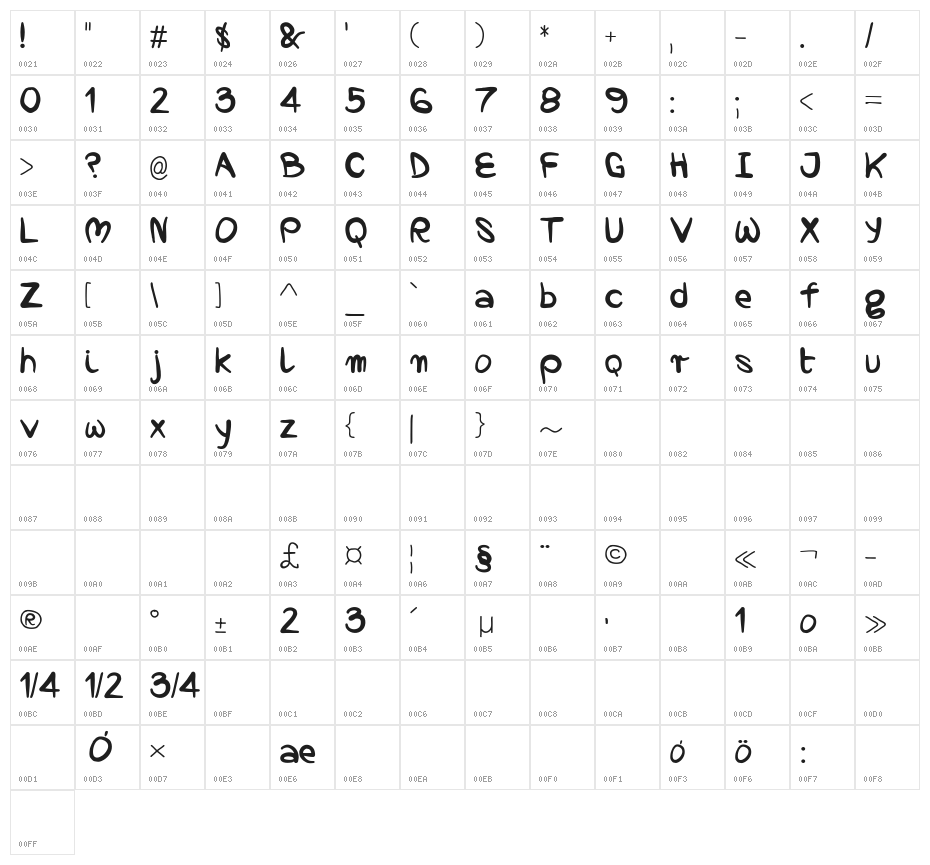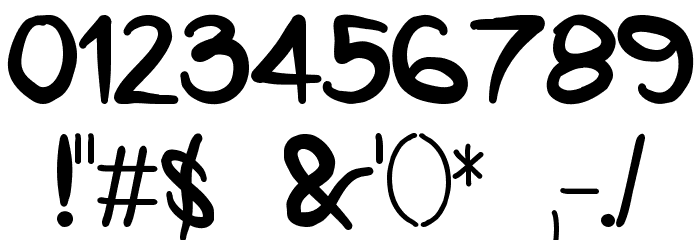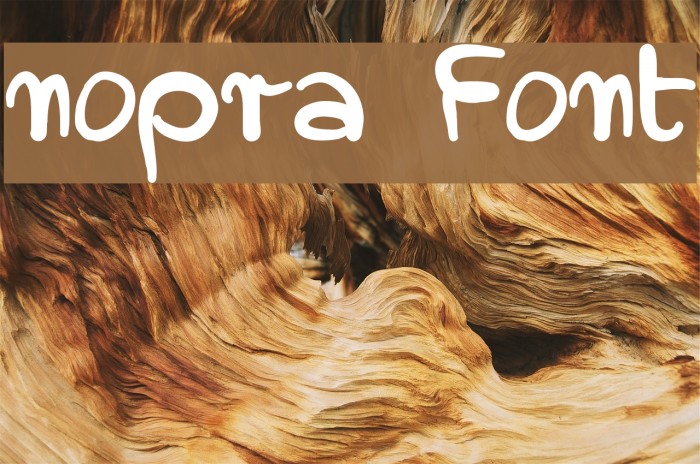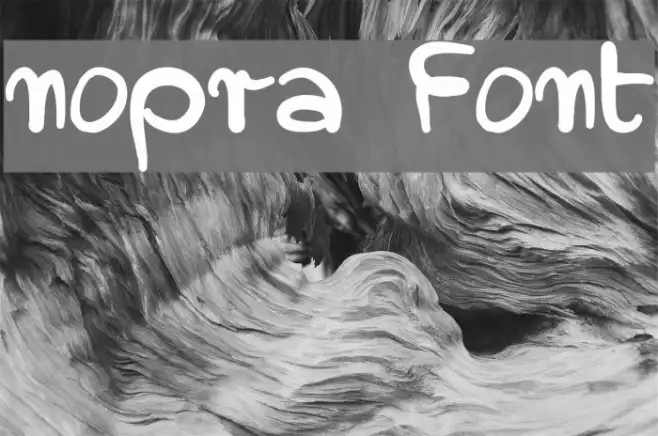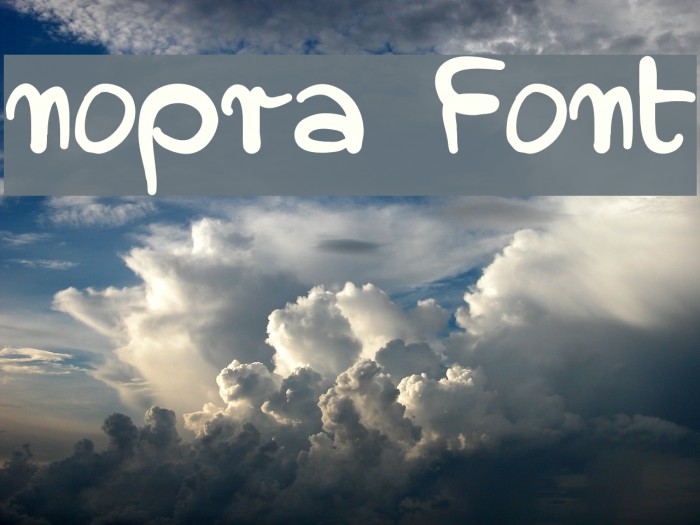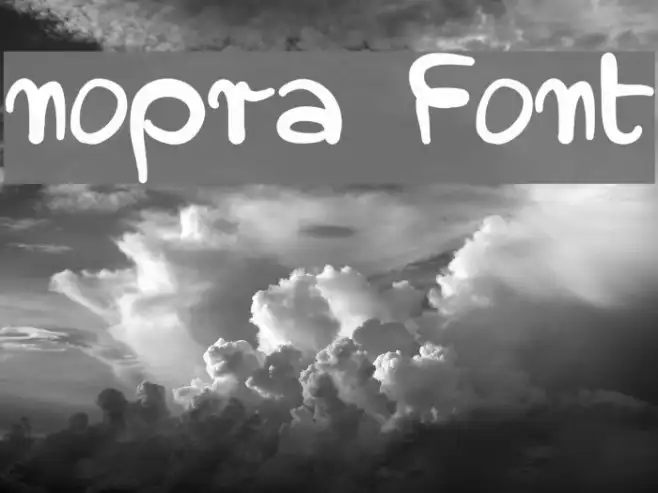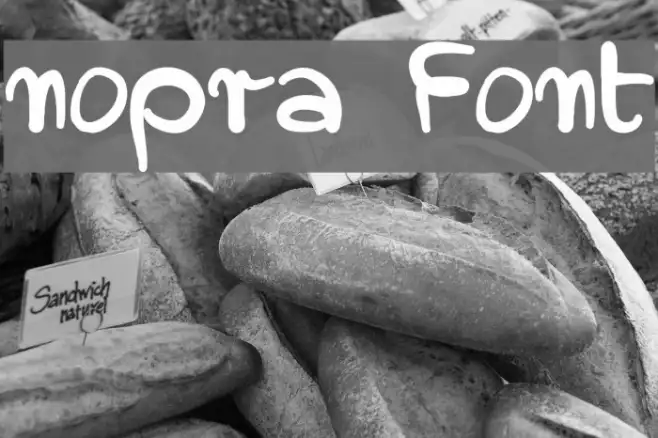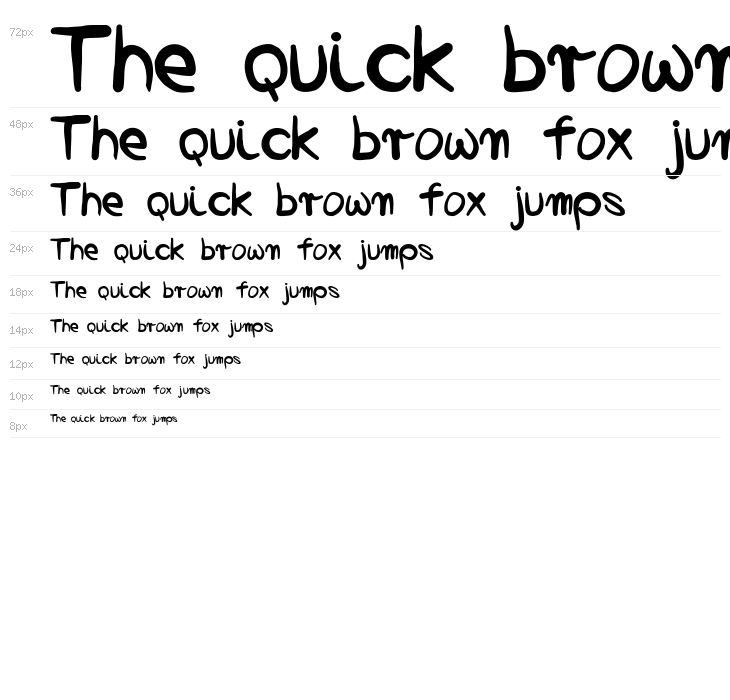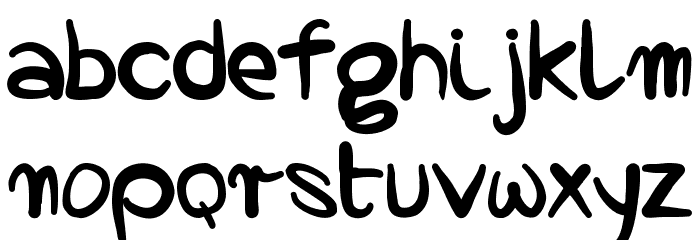
nopra Font
nopra Description
This playful and whimsical font features a hand-drawn, cartoon-like style with bold, rounded characters. The letters have a casual, informal appearance, with varying stroke widths that add to its lively and energetic feel. The uppercase and lowercase letters maintain a consistent style, while the numbers and special characters complement the overall design. This font's unique character shapes and slightly irregular lines give it a friendly and approachable personality, making it suitable for creative and fun projects.
| Proposed Projects | Ideal for children's books, comic strips, playful branding, and creative posters. |